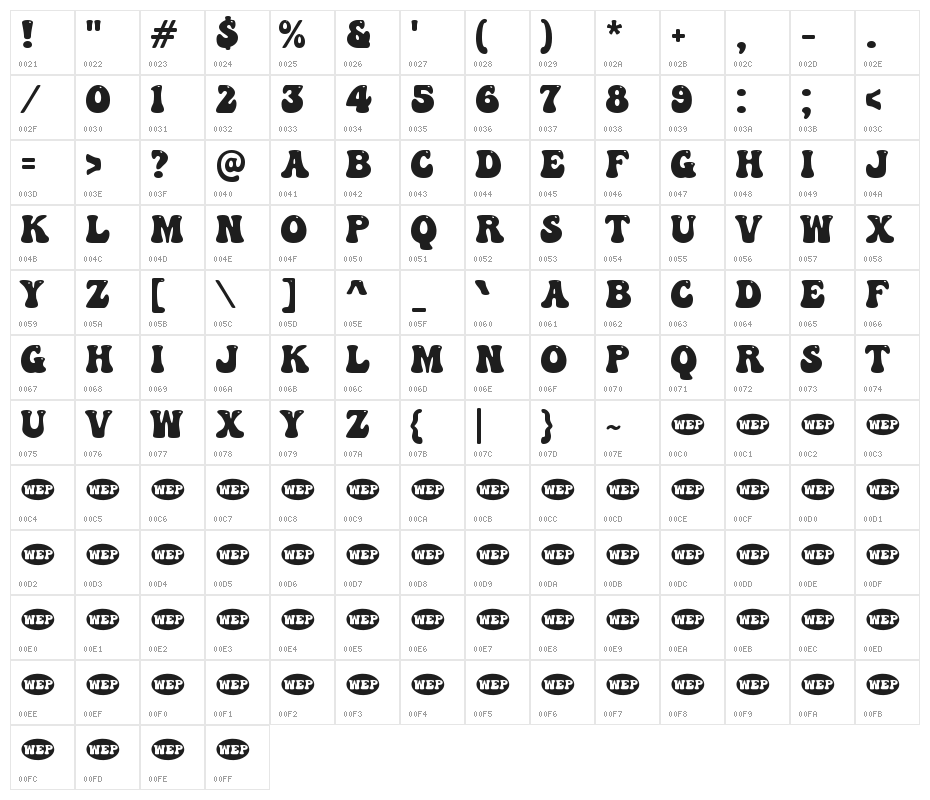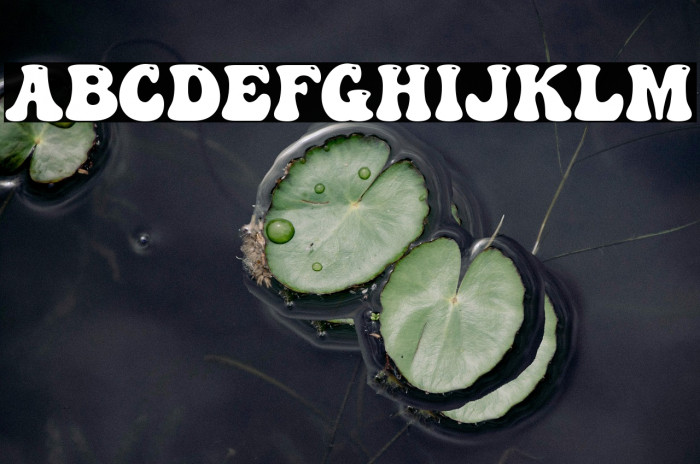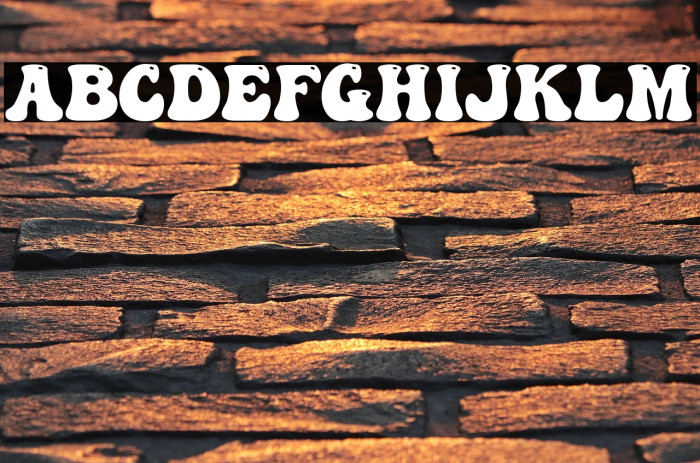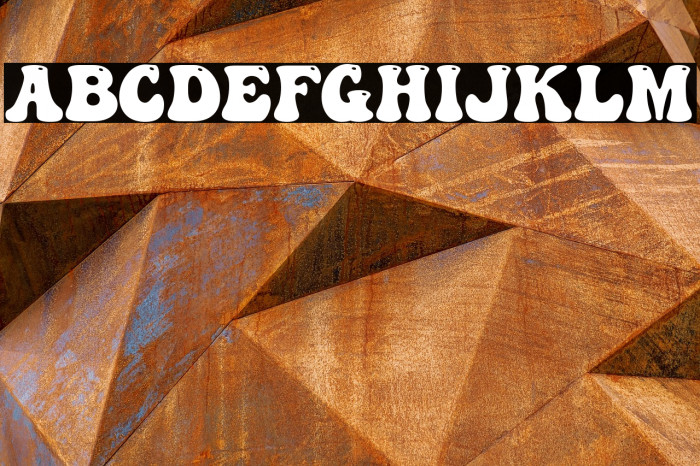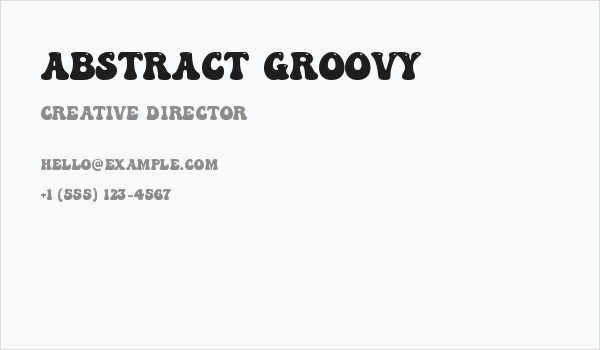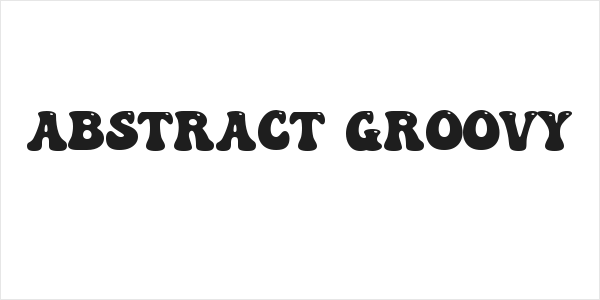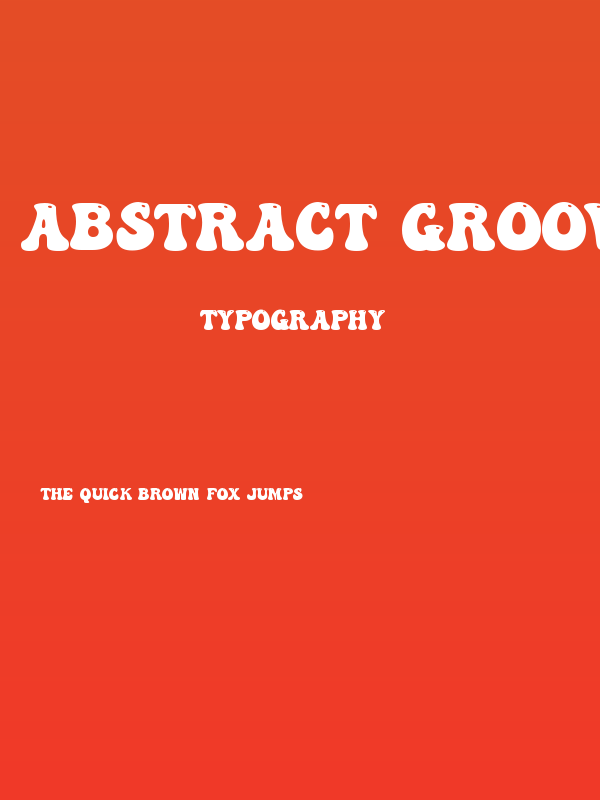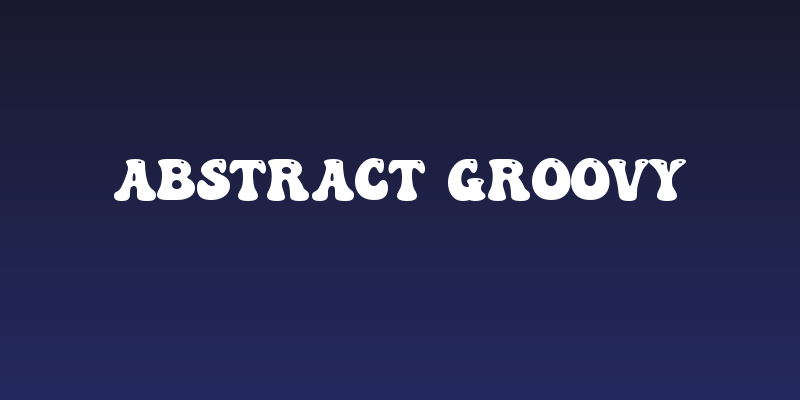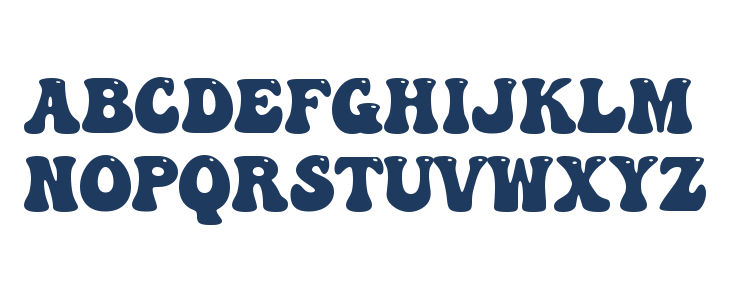
Abstract Groovy Font
Abstract Groovy Description
This font features a bold, playful design with a distinctly retro vibe. The characters are rounded and thick, with a whimsical flair that evokes a sense of fun and creativity. The exaggerated curves and bulbous shapes give it a groovy, 1970s-inspired aesthetic. Each letter is uniquely crafted with a sense of movement and rhythm, making it ideal for projects that require a lively and eye-catching typeface. The numbers and special characters maintain the same playful style, ensuring consistency across all text elements.